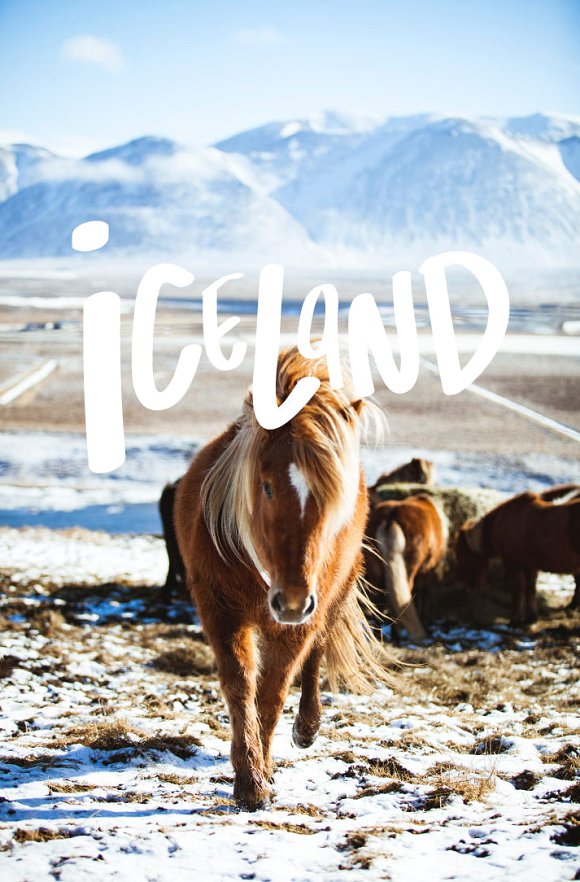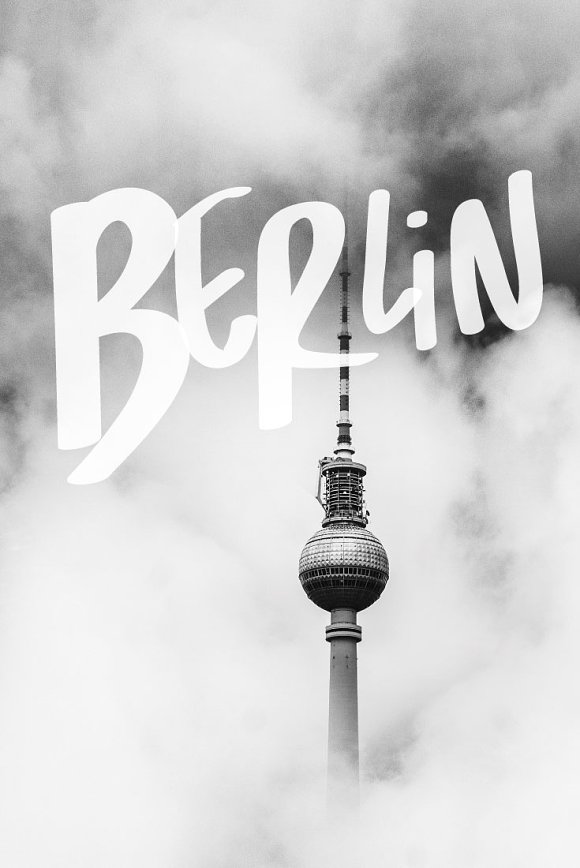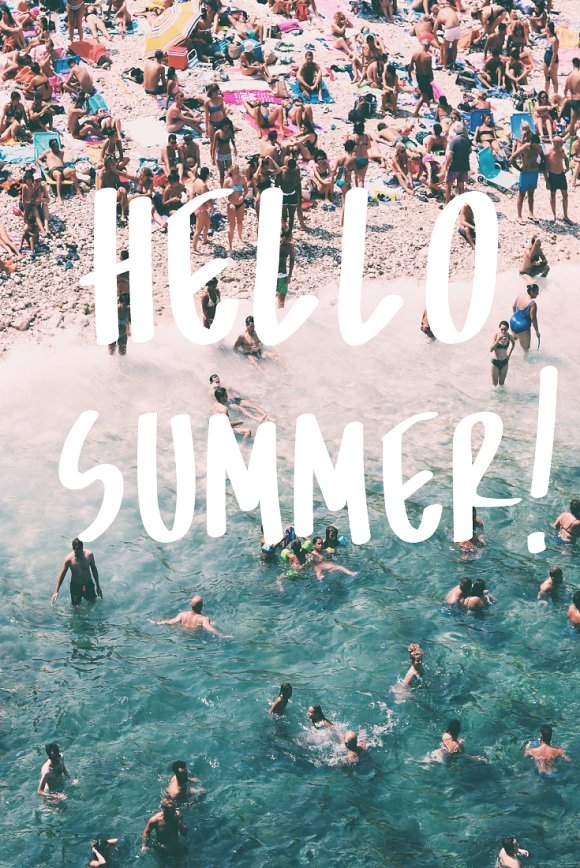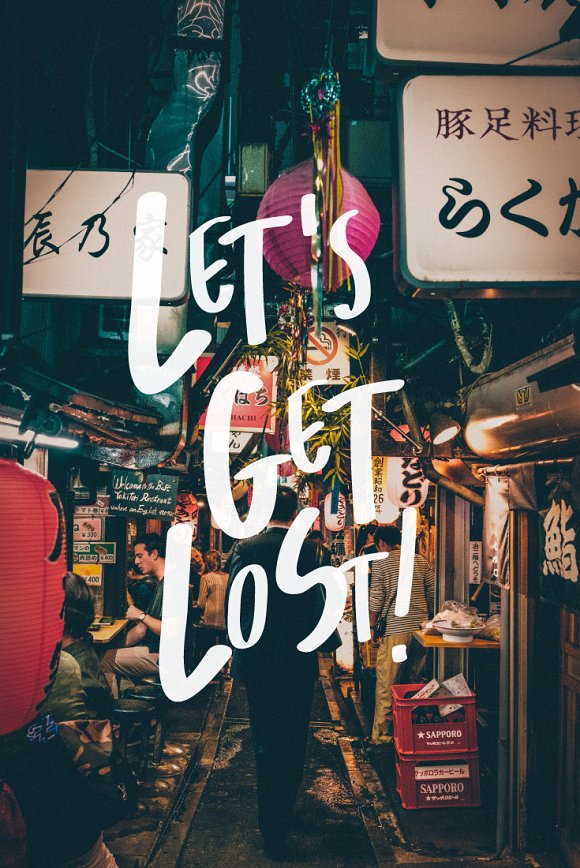
Shiraz | Font Family with Outlines
Shiraz is a multi-weight sans serif display font family, perfect for poster and print design, invitations and much more! It is really easy to play with Shiraz, just combine the 4 styles together.
Please note that all styles are different from each other, the letters are not identical in the outline font!